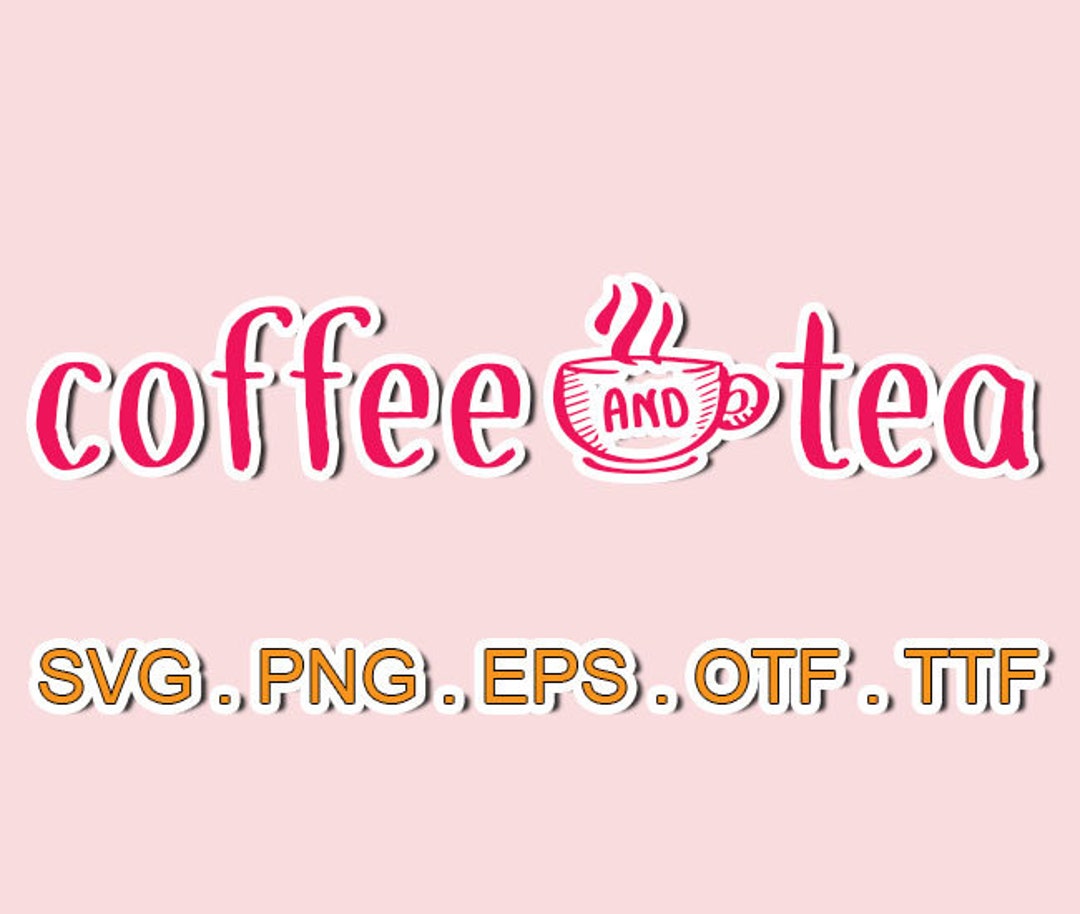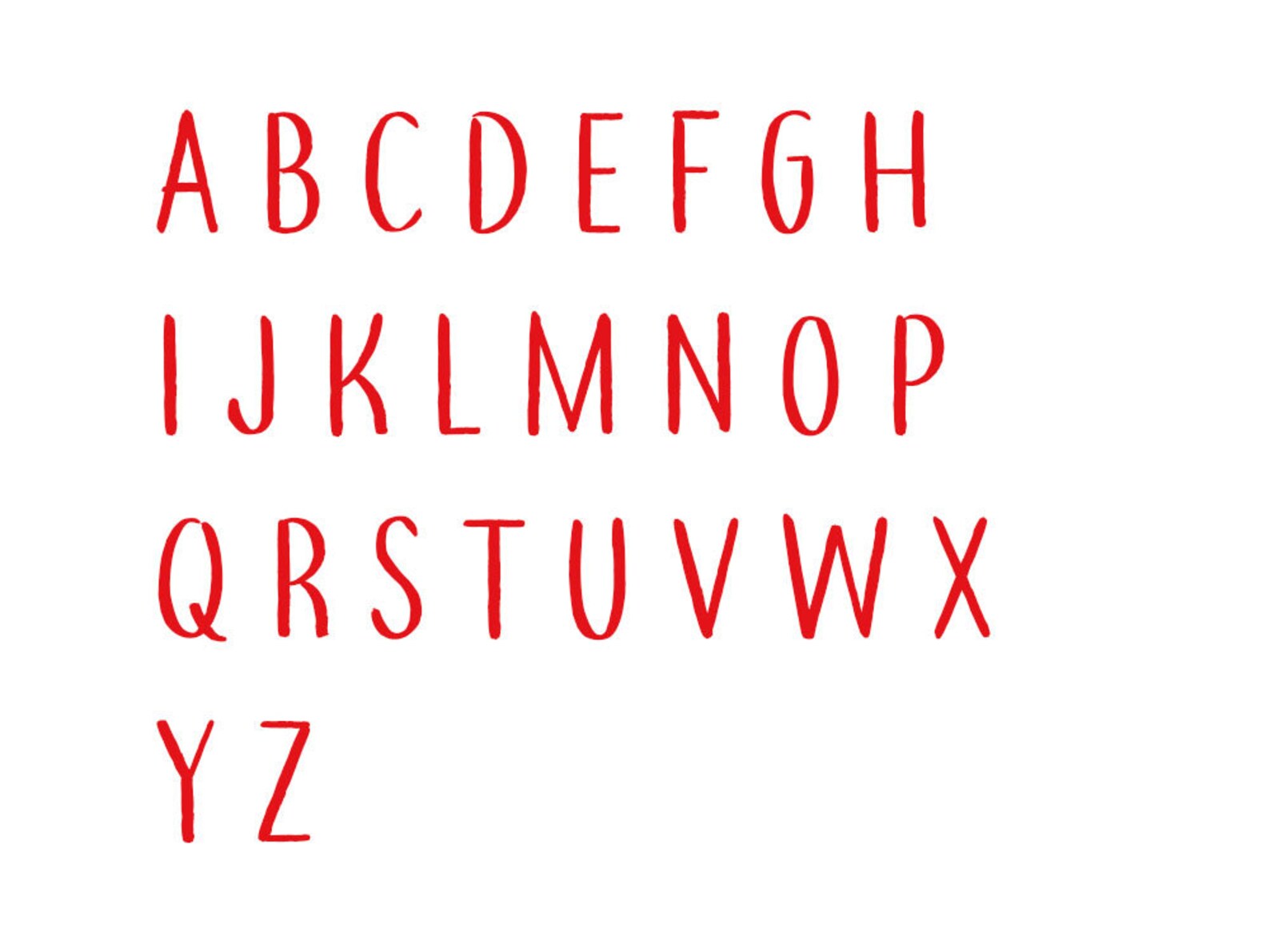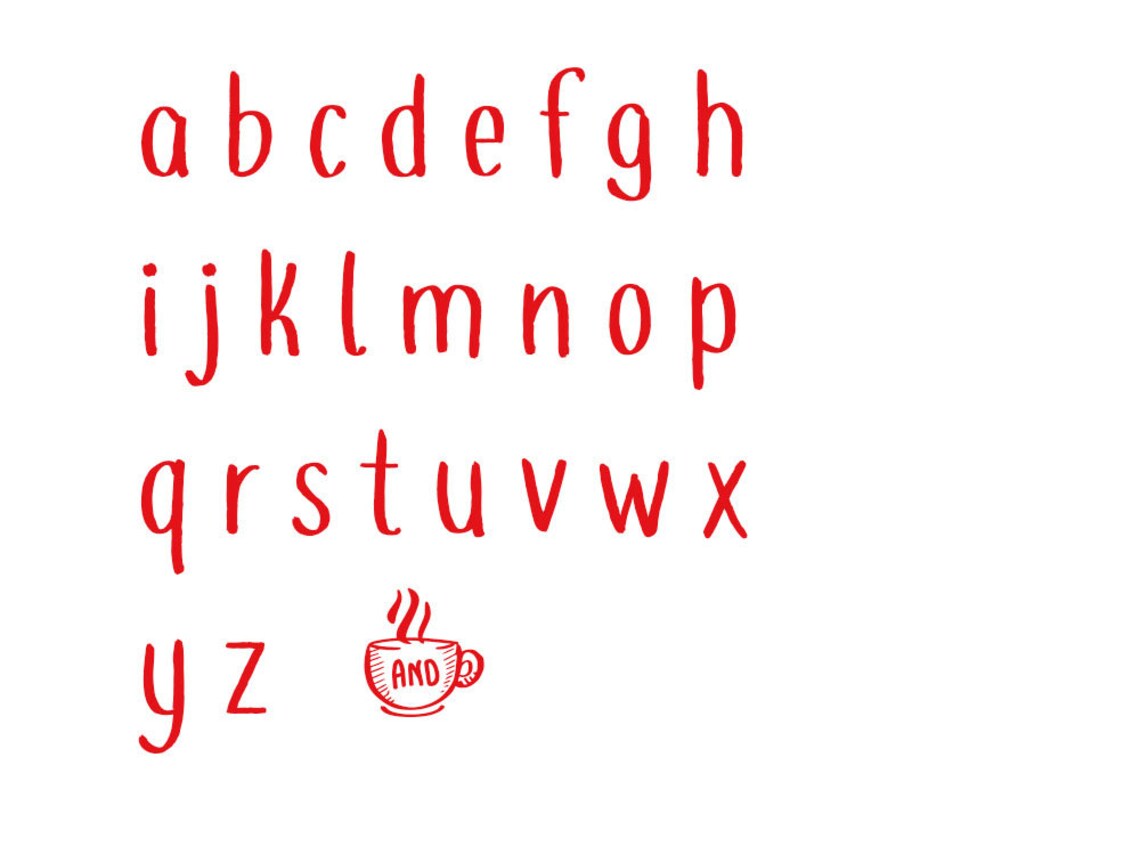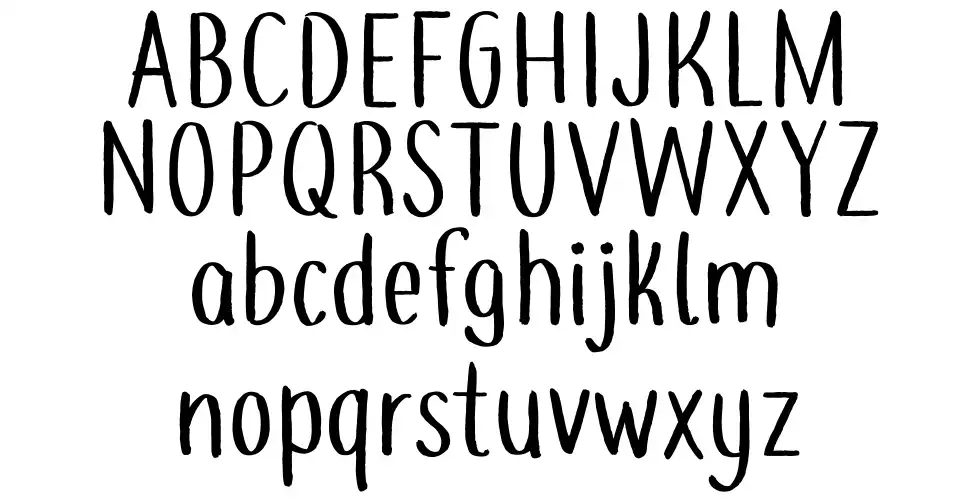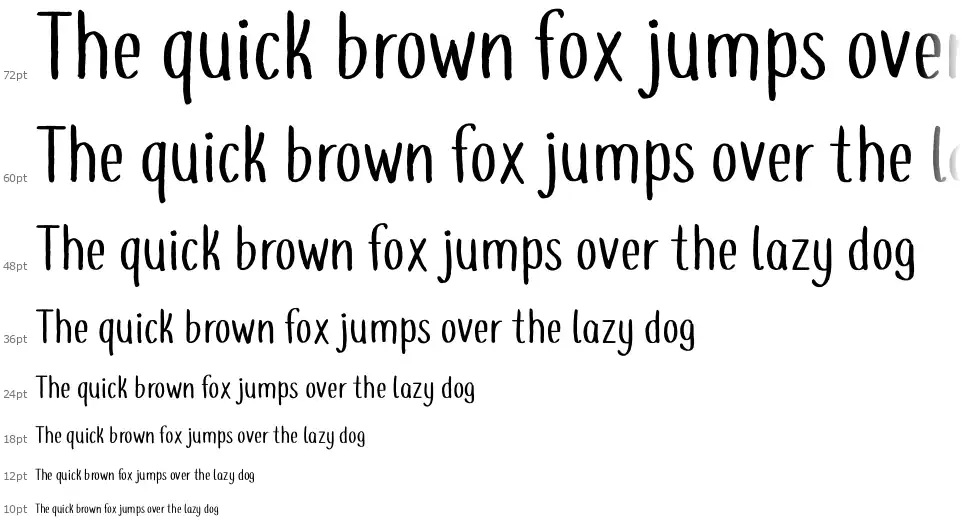
Coffee And Tea Font . Free download of coffee+tea font. “coffee+tea” is perfectly suited to signature, stationery, logo,. Coffee+tea was designed and shares by phitradesign. The coffee and tea font has been downloaded 28,857 times. Explore our vast selection of free coffee fonts. Download and install the coffee and tea font by phitradesign. Coffee+tea was designed and shares by phitradesign. Click now to create a custom image with your own words that you can download. Both lowercase and uppercase give the font a. Both lowercase and uppercase give the font a.
Download and install the coffee and tea font by phitradesign. Free download of coffee+tea font. “coffee+tea” is perfectly suited to signature, stationery, logo,. Coffee+tea was designed and shares by phitradesign. Click now to create a custom image with your own words that you can download. The coffee and tea font has been downloaded 28,857 times. Explore our vast selection of free coffee fonts. Both lowercase and uppercase give the font a. Both lowercase and uppercase give the font a.
Coffee And Tea Font Download and install the coffee and tea font by phitradesign. Explore our vast selection of free coffee fonts. The coffee and tea font has been downloaded 28,857 times. Both lowercase and uppercase give the font a. Click now to create a custom image with your own words that you can download. Both lowercase and uppercase give the font a. Coffee+tea was designed and shares by phitradesign. Download and install the coffee and tea font by phitradesign. “coffee+tea” is perfectly suited to signature, stationery, logo,. Free download of coffee+tea font.
Coffee and Tea Font Svg Filesotf for Cricutsvg Etsy UK Coffee And Tea Font “coffee+tea” is perfectly suited to signature, stationery, logo,. Both lowercase and uppercase give the font a. Free download of coffee+tea font. The coffee and tea font has been downloaded 28,857 times. Coffee+tea was designed and shares by phitradesign. Click now to create a custom image with your own words that you can download. Both lowercase and uppercase give the font. Coffee And Tea Font.
Coffee+Tea font by Phitradesign FontRiver Coffee And Tea Font The coffee and tea font has been downloaded 28,857 times. Explore our vast selection of free coffee fonts. Download and install the coffee and tea font by phitradesign. Both lowercase and uppercase give the font a. Click now to create a custom image with your own words that you can download. Both lowercase and uppercase give the font a. “coffee+tea”. Coffee And Tea Font.
Coffee+Tea font by Phitradesign FontRiver Coffee And Tea Font Both lowercase and uppercase give the font a. Coffee+tea was designed and shares by phitradesign. Free download of coffee+tea font. The coffee and tea font has been downloaded 28,857 times. “coffee+tea” is perfectly suited to signature, stationery, logo,. Coffee+tea was designed and shares by phitradesign. Explore our vast selection of free coffee fonts. Click now to create a custom image. Coffee And Tea Font.
Coffee and Tea Font Svg Filesotf for Cricutsvg Etsy Coffee And Tea Font Download and install the coffee and tea font by phitradesign. Coffee+tea was designed and shares by phitradesign. The coffee and tea font has been downloaded 28,857 times. Coffee+tea was designed and shares by phitradesign. Click now to create a custom image with your own words that you can download. Free download of coffee+tea font. “coffee+tea” is perfectly suited to signature,. Coffee And Tea Font.
Coffee And Tea Font Free Fonts Coffee And Tea Font The coffee and tea font has been downloaded 28,857 times. Coffee+tea was designed and shares by phitradesign. Click now to create a custom image with your own words that you can download. Coffee+tea was designed and shares by phitradesign. Explore our vast selection of free coffee fonts. Download and install the coffee and tea font by phitradesign. Both lowercase and. Coffee And Tea Font.
Coffee+Tea Font Coffee And Tea Font Both lowercase and uppercase give the font a. Coffee+tea was designed and shares by phitradesign. Download and install the coffee and tea font by phitradesign. “coffee+tea” is perfectly suited to signature, stationery, logo,. Both lowercase and uppercase give the font a. Explore our vast selection of free coffee fonts. Coffee+tea was designed and shares by phitradesign. The coffee and tea. Coffee And Tea Font.
Coffee and tea lettering logo Royalty Free Vector Image Coffee And Tea Font “coffee+tea” is perfectly suited to signature, stationery, logo,. Download and install the coffee and tea font by phitradesign. Explore our vast selection of free coffee fonts. Coffee+tea was designed and shares by phitradesign. Click now to create a custom image with your own words that you can download. Coffee+tea was designed and shares by phitradesign. Both lowercase and uppercase give. Coffee And Tea Font.
Coffee+tea Font shaped fonts FontSpace Coffee And Tea Font The coffee and tea font has been downloaded 28,857 times. Both lowercase and uppercase give the font a. “coffee+tea” is perfectly suited to signature, stationery, logo,. Both lowercase and uppercase give the font a. Download and install the coffee and tea font by phitradesign. Free download of coffee+tea font. Explore our vast selection of free coffee fonts. Coffee+tea was designed. Coffee And Tea Font.
Coffee And Tea Font Libfonts Coffee And Tea Font Click now to create a custom image with your own words that you can download. Explore our vast selection of free coffee fonts. “coffee+tea” is perfectly suited to signature, stationery, logo,. Free download of coffee+tea font. Both lowercase and uppercase give the font a. The coffee and tea font has been downloaded. Coffee And Tea Font.